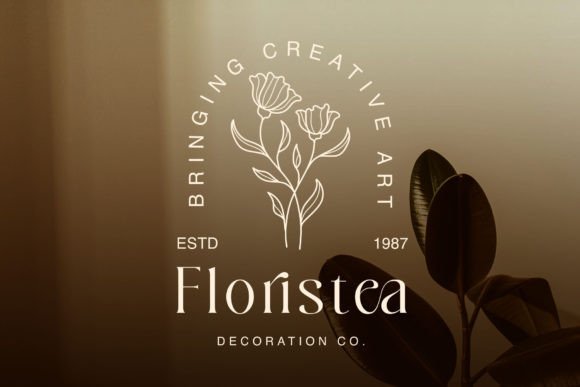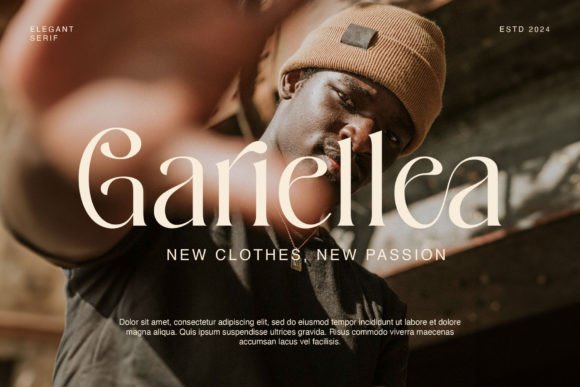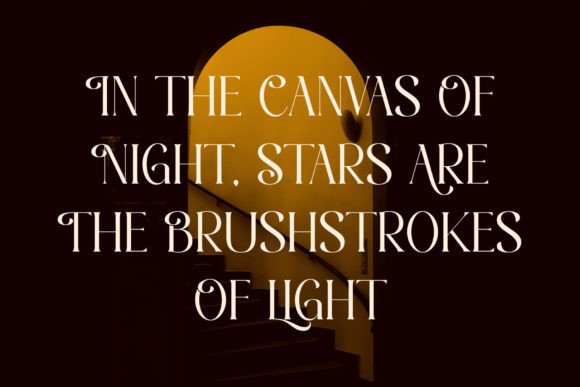
Bowtaris Font
Presenting Bowtaris, an aesthetic vintage serif font with a sparkle of elegance.A classic design that brings timeless charm, reminiscent of traditional typefaces from the past.